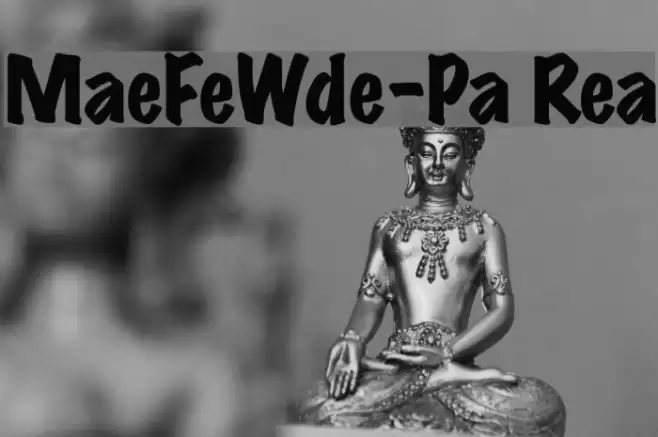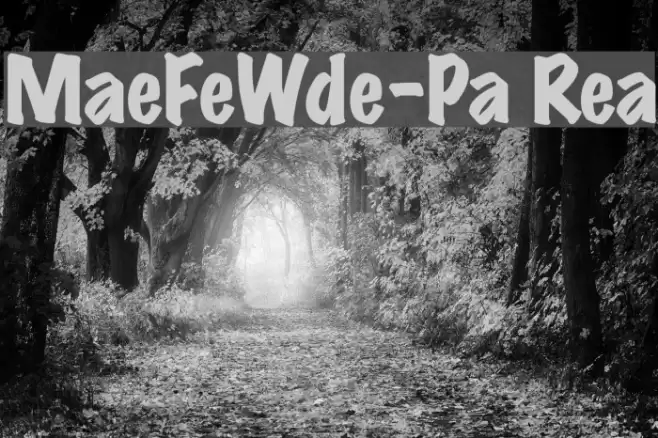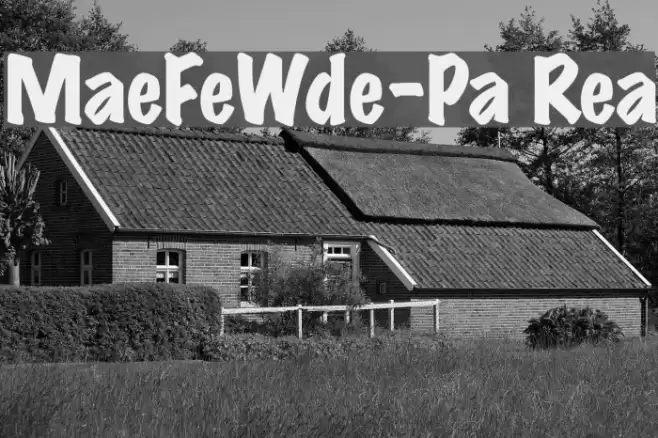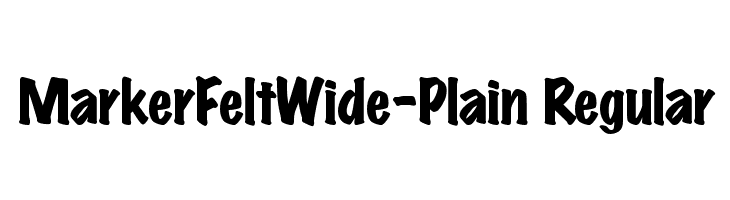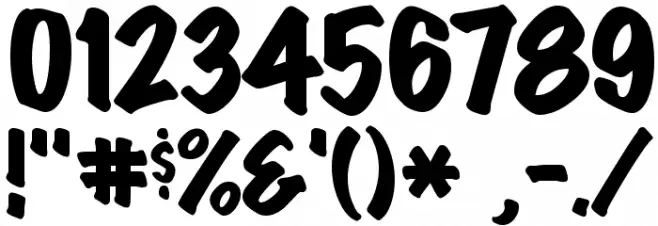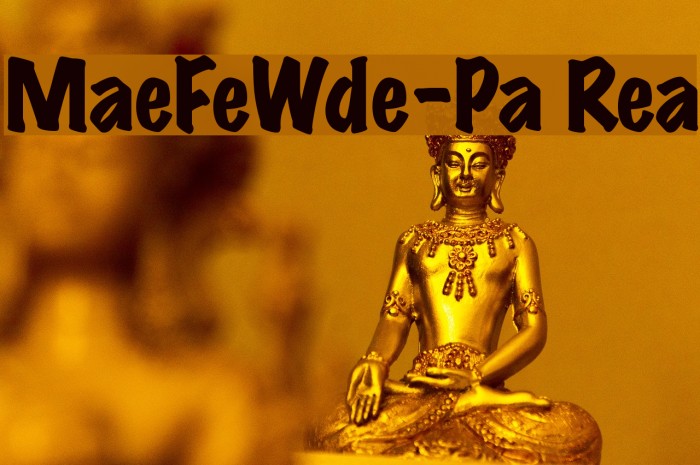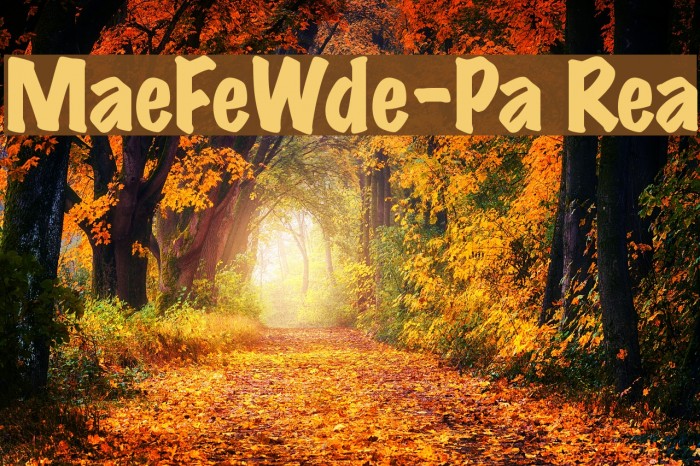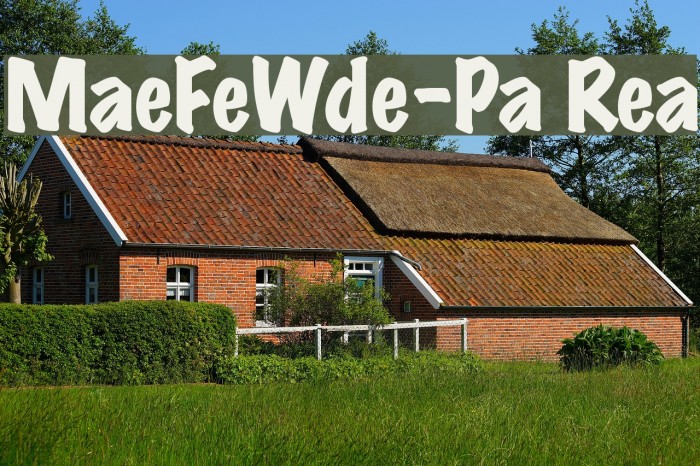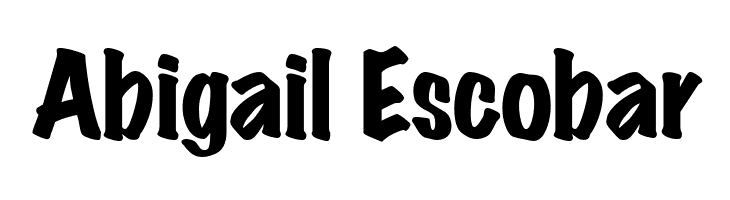
MarkerFeltWide-Plain Regular
This font exudes a playful and casual vibe, reminiscent of hand-drawn lettering with a felt-tip marker. The characters are bold and wide, giving them a strong presence on the page. Each letter has a slightly irregular shape, adding to the informal and friendly appearance. The strokes are consistent in width, providing a uniform look across all characters. The font includes a full set of uppercase and lowercase letters, numbers, and a variety of special characters, making it versatile for different uses. Its unique style makes it stand out, perfect for projects that require a touch of personality and creativity.
A bold, playful font with a hand-drawn, marker-like appearance.
- Proposed Projects: Ideal for children's books, posters, greeting cards, and any project needing a fun, informal touch.
- Width: Expanded
- Overall Style: Casual, Playful
- Use Case: Headlines, Logos, Posters